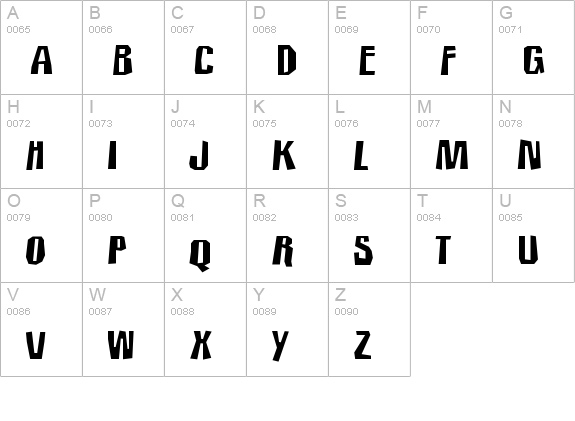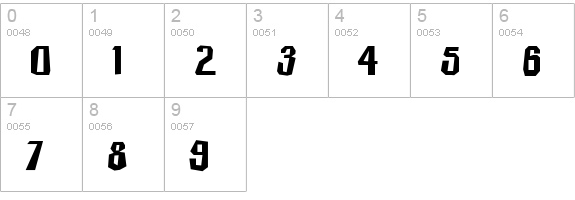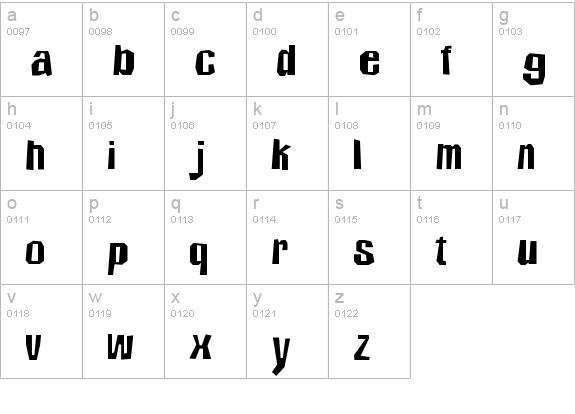
Icicle Country 2 Font Details
Icicle Country 2 is a stunning display font that exudes elegance and sophistication. Its intricate design features sharp, icy edges that give it a unique and dynamic appearance. This font is perfect for adding a touch of frosty charm to your projects, whether it be for winter-themed designs, holiday greetings, or any creative endeavor that calls for a cool and stylish touch. The best part? Icicle Country 2 is available for free download at FontsMarket.com. This means you can easily access this beautiful font to elevate your designs without breaking the bank. Don't miss out on the opportunity to add a touch of frosty magic to your creations with Icicle Country 2 - download it today and let your creativity shine!